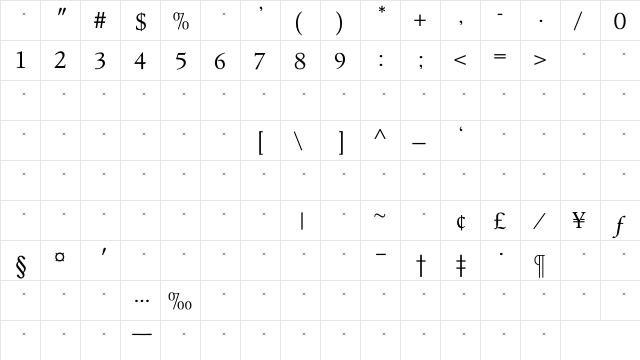
LeightonLightTab Regular
Design Context for LeightonLightTab Typeface
LeightonLightTab offers clean, dependable letterforms without strong stylistic allegiance, making it a practical choice for designers who need flexibility. The delicate stroke weight brings airiness and refinement to layouts.
Pro Tip: Use LeightonLightTab in both headline and body roles to test its range before committing to a single application.